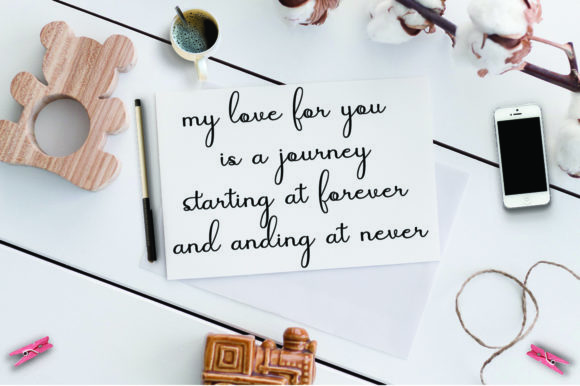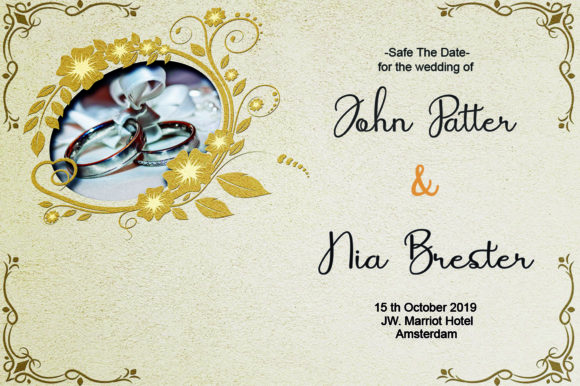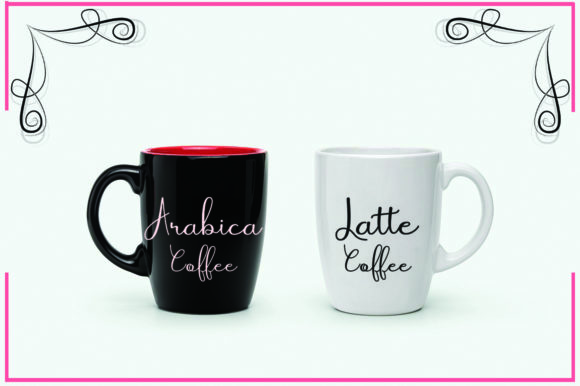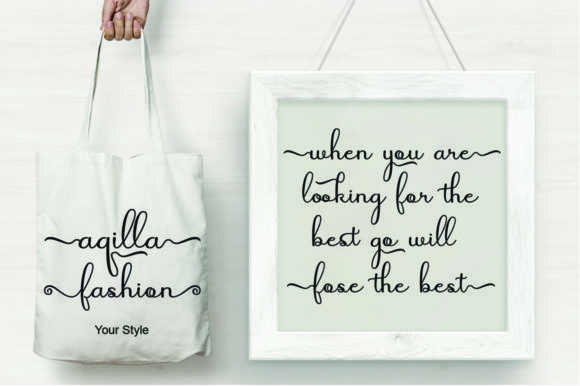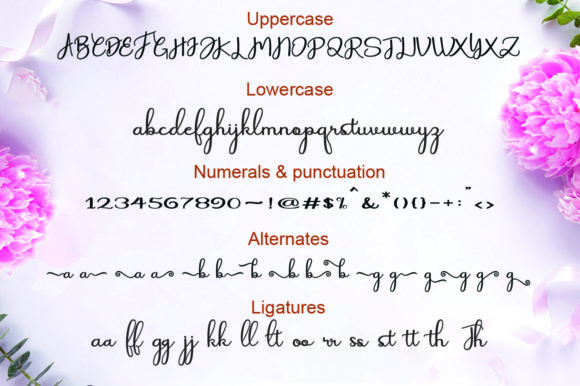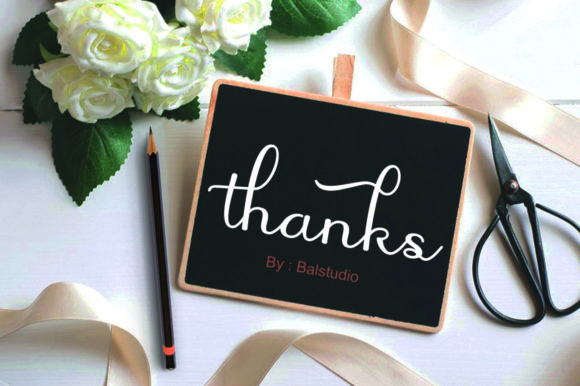
Aurelia Font: A Timeless Script with a Classic Look
Aurelia Font is a breathtaking script that embodies the essence of classic elegance. With its sweet and lovely feel, this font is sure to inspire designers and crafters alike. In this article, we’ll delve into the world of Aurelia Font, exploring its features, uses, and the creative possibilities it offers.
The Charm of Aurelia Font
Aurelia Font boasts a distinctive, hand-crafted look that exudes warmth and sophistication. Its flowing curves and delicate lines evoke a sense of nostalgia, reminiscent of traditional calligraphy. This stunning script font is perfect for projects that require a touch of elegance, such as wedding invitations, branding, and packaging design.
Key Features of Aurelia Font
- Classic look: Aurelia Font’s timeless design ensures it remains relevant across various design trends and styles.
- Sweet and lovely feel: The font’s gentle curves and lines create a soft, inviting aesthetic.
- Script style: Aurelia Font features a beautiful, handwritten script style that’s perfect for adding a personal touch to designs.
- High readability: The font’s clear and legible design makes it suitable for body text, headlines, and titles.
Uses of Aurelia Font
Aurelia Font’s versatility makes it an excellent choice for a wide range of design projects, including:
- Wedding and event design: Create beautiful wedding invitations, save-the-date cards, and event branding with Aurelia Font’s elegant script.
- Branding and packaging: Add a touch of sophistication to your brand’s identity with Aurelia Font’s classic look.
- Stationery and paper goods: Design lovely stationery, notebooks, and paper crafts with Aurelia Font’s charming script.
- Digital design: Use Aurelia Font in digital projects, such as website headers, social media graphics, and email newsletters.
Tips for Using Aurelia Font
To get the most out of Aurelia Font, consider the following tips:
- Pair with complementary fonts: Combine Aurelia Font with sans-serif fonts, such as Arial or Helvetica, for a striking contrast.
- Experiment with colors: Try pairing Aurelia Font with pastel colors, gold or silver accents, or rich jewel tones to create a unique look.
- Play with textures and patterns: Add depth and interest to your design by incorporating textures, watercolor patterns, or subtle backgrounds.
Aurelia Font is a stunning script font that offers a classic, timeless look with a sweet and lovely feel. Its versatility and elegance make it an excellent choice for designers and crafters seeking to add a touch of sophistication to their projects. Whether you’re designing wedding invitations, branding, or digital content, Aurelia Font is sure to inspire your creativity.
Get Inspired with Aurelia Font
With Aurelia Font, the possibilities are endless. Take a moment to explore its features, experiment with different design combinations, and let your creativity shine. Whether you’re a seasoned designer or a crafty enthusiast, Aurelia Font is sure to become a favorite in your collection.